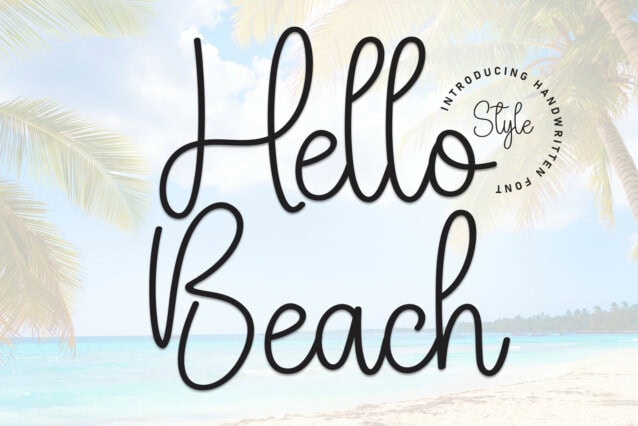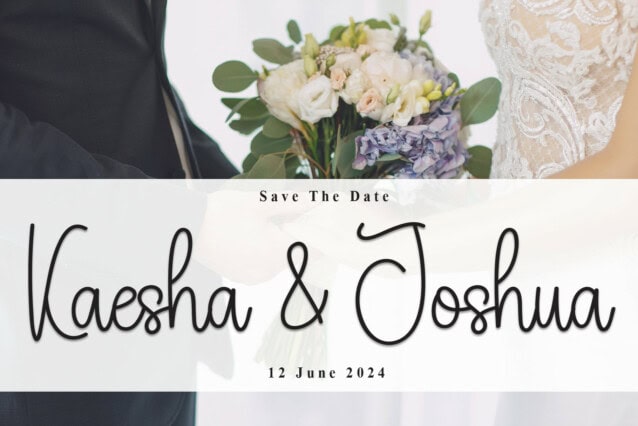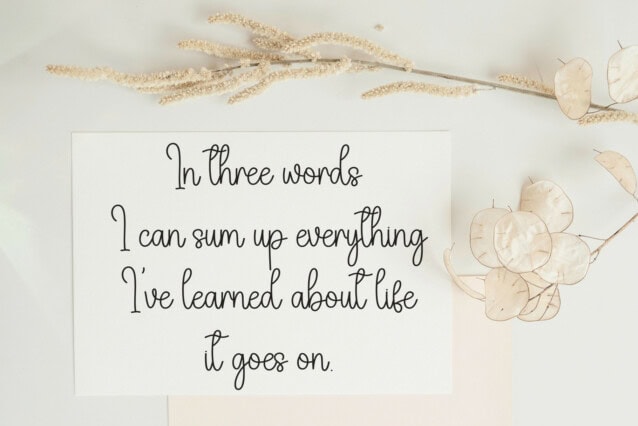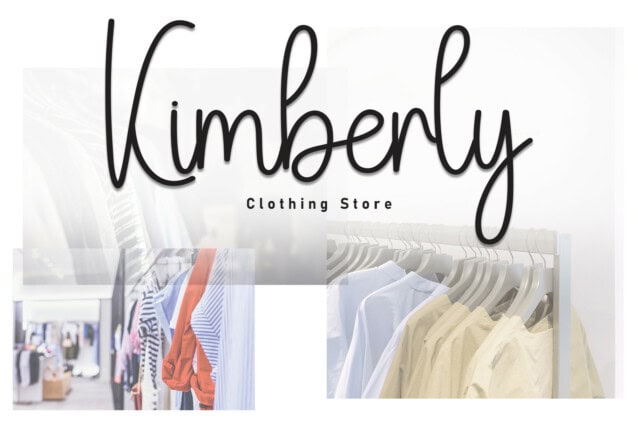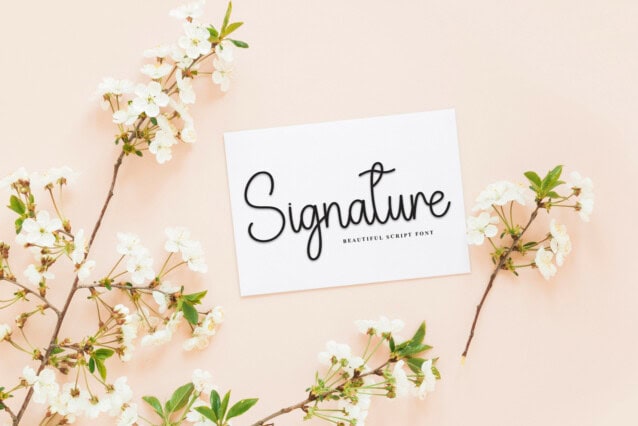
Hello Beach Script Font
Hello Beach Script Font is a sweet and friendly handwritten font. Its natural and unique style makes it incredibly fitting to a large pool of designs. The only limit is your imagination!